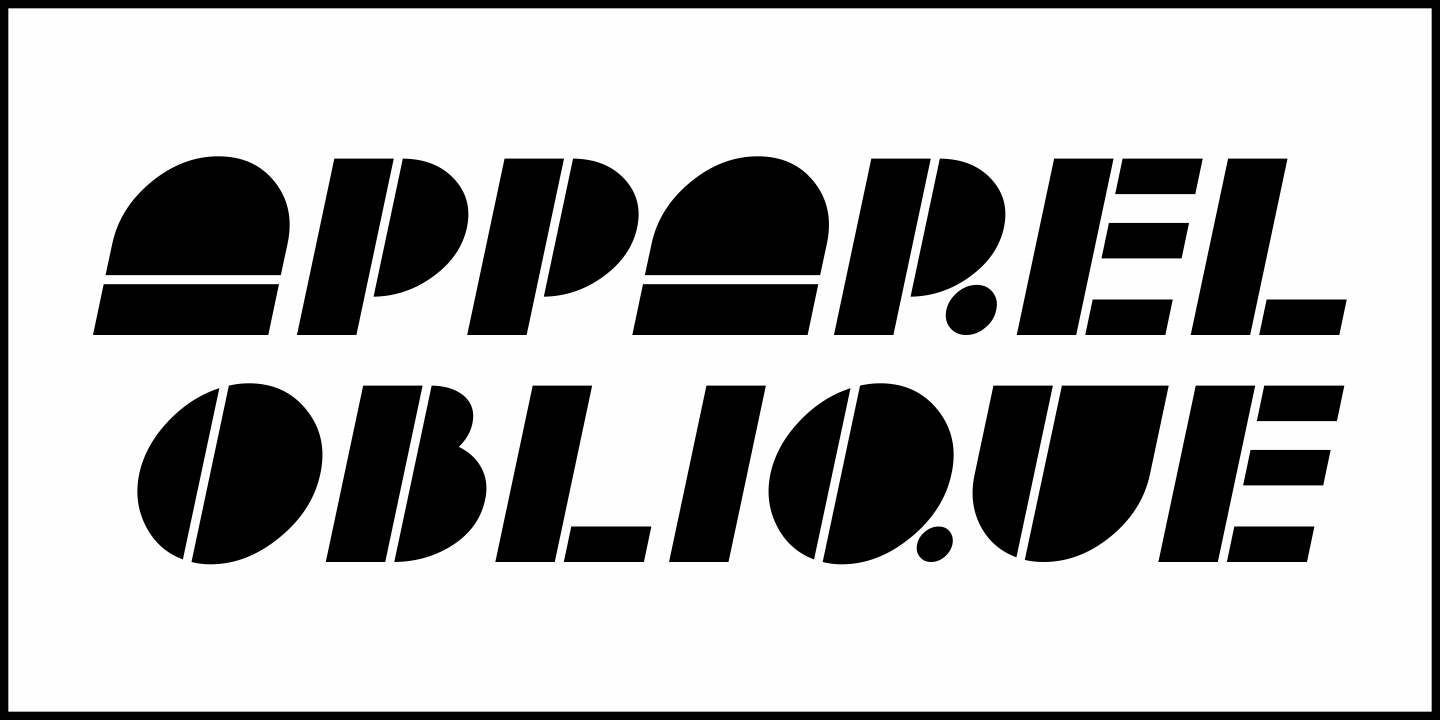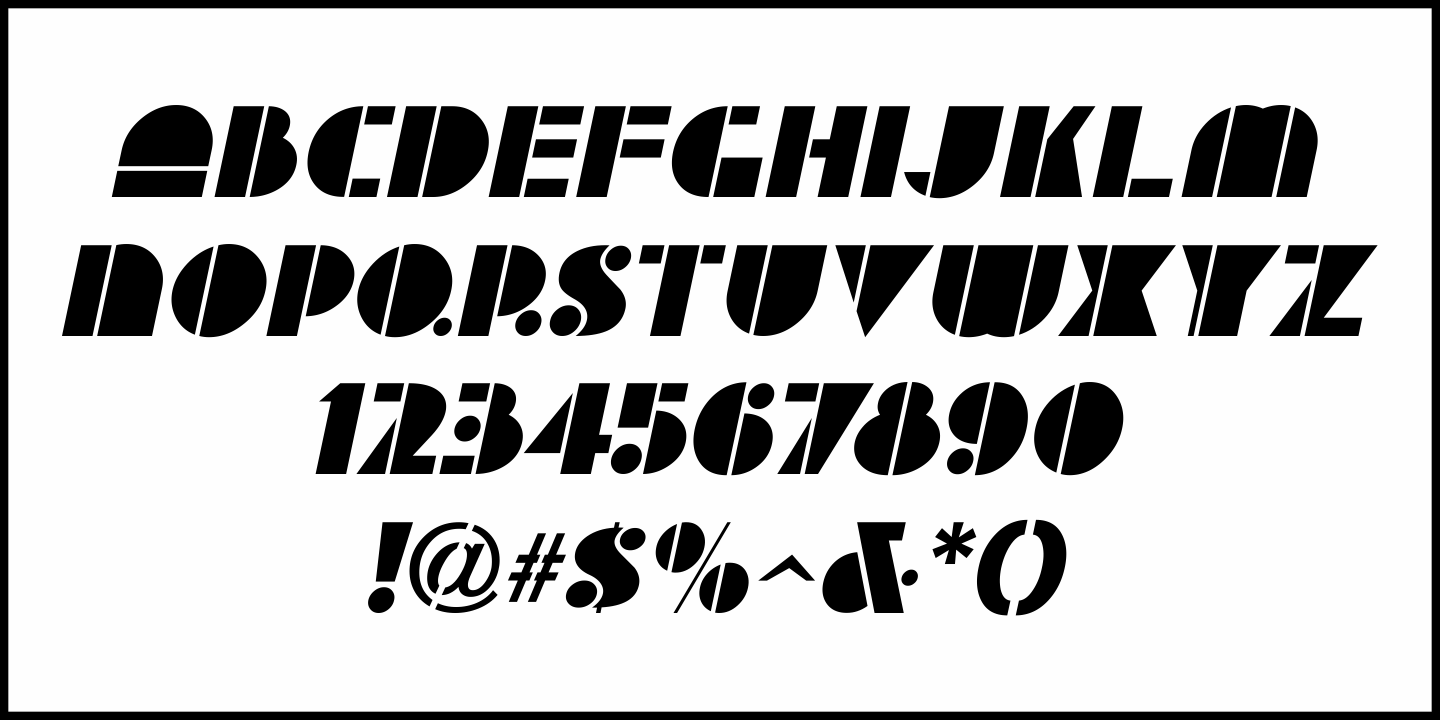
Apparel
An image spotted online showed a rendering of a ladies’ fashions storefront that had appeared in the Libbey-Owens-Ford Glass Company’s 1939 brochure.
The signage consisted of the hand lettered word ‘Apparel’, and was done in a variant of the Art Deco stencil style of lettering that’s most recognizable in Futura Black.
From these few sign letters came the inspiration for a digital font of the same name, Apparel JNL – which is available in both regular and oblique versions.